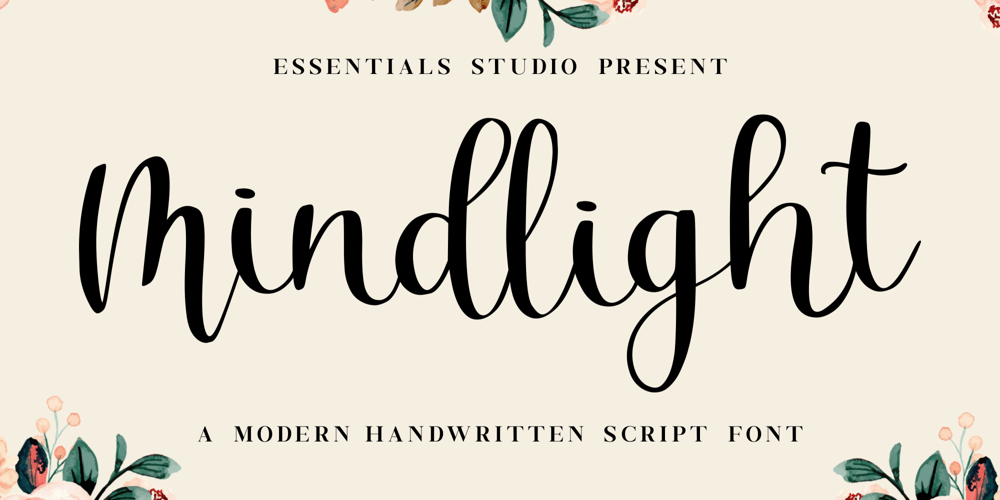
Mindlight Font Family was designed by Bagus Panji Asmoro and published by Essentials Studio. Mindlight contains 1 styles and family package options. introducing by Essentials StudioProudly Present, Mindlight Is a A Modern Handwritten Script FontMindlight is perfect for product packaging, branding project, megazine, social media, wedding, or just used to express words above the background.